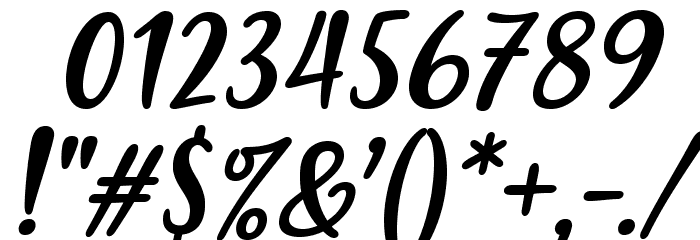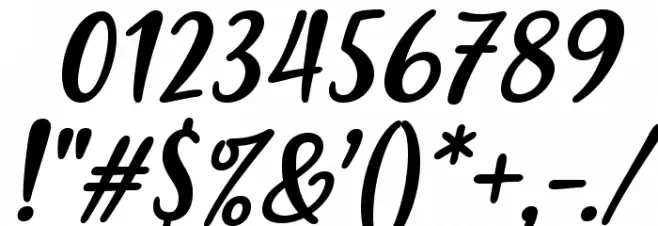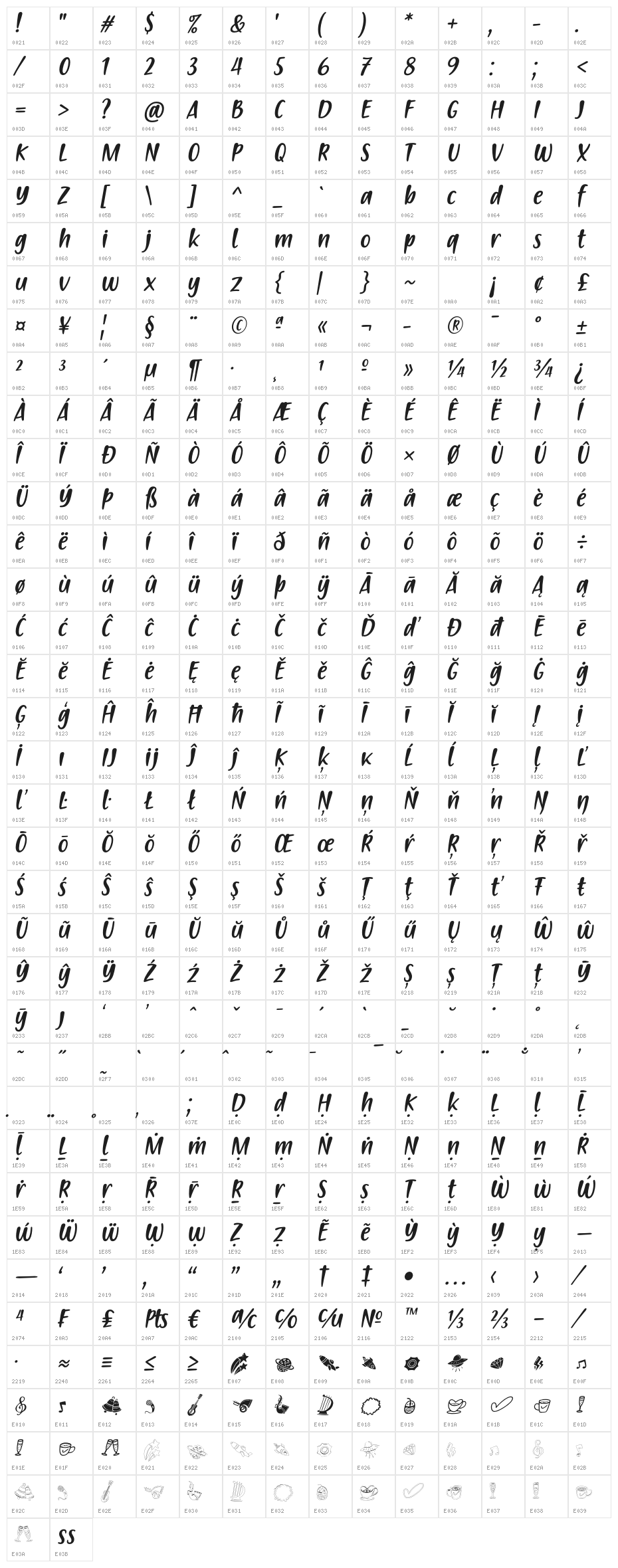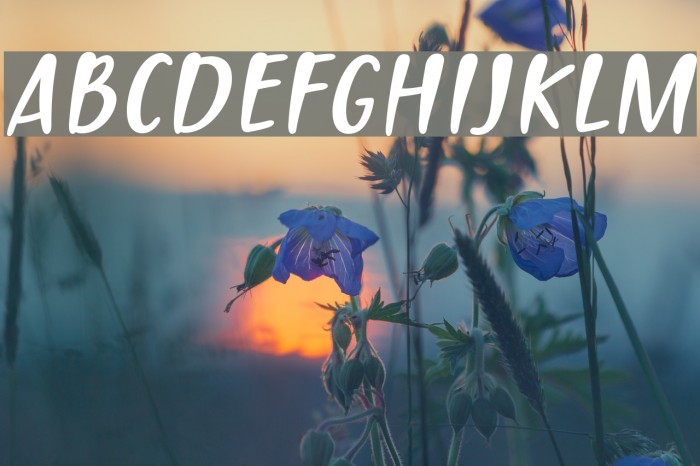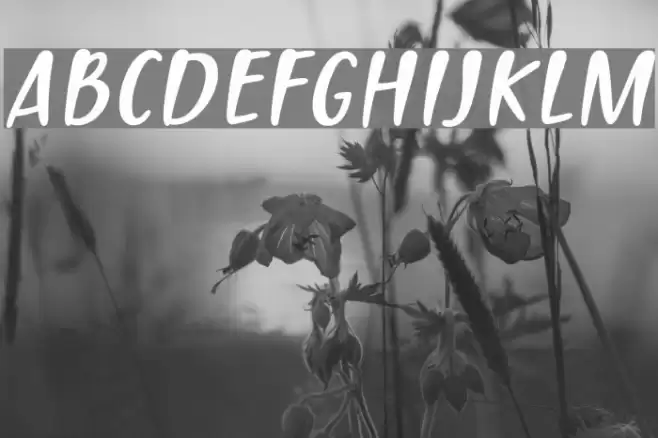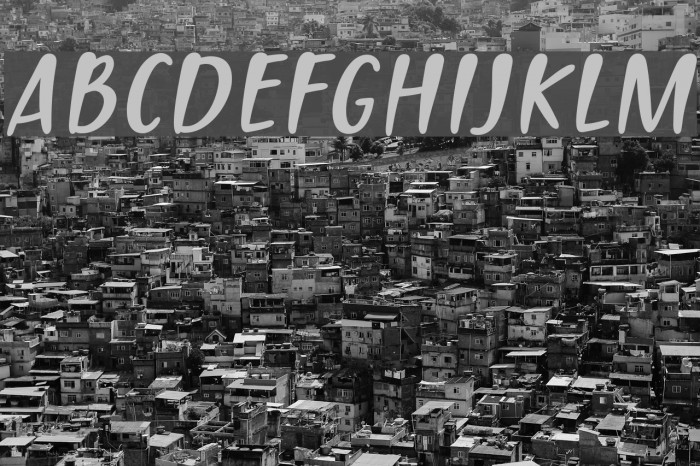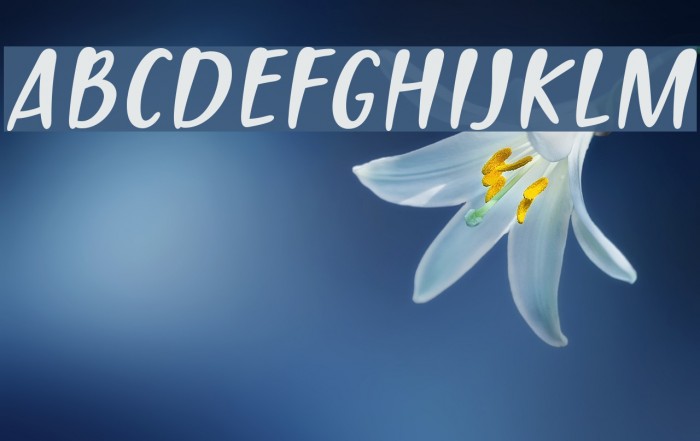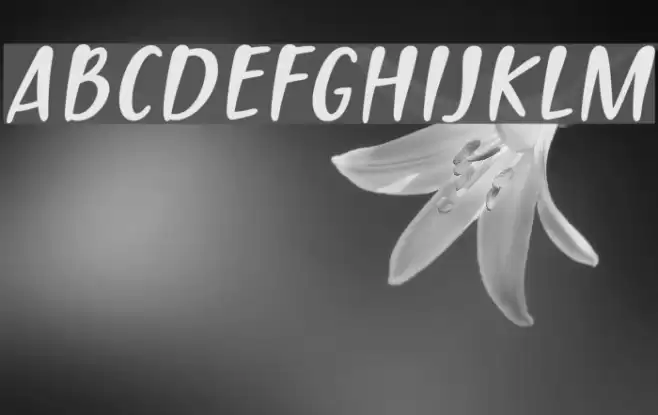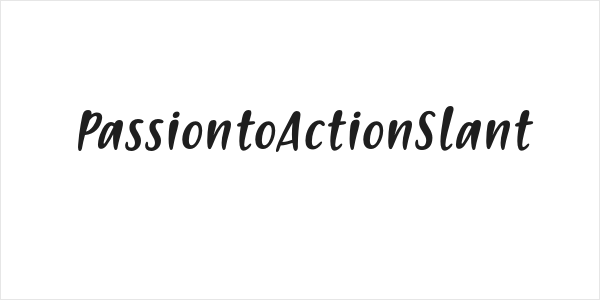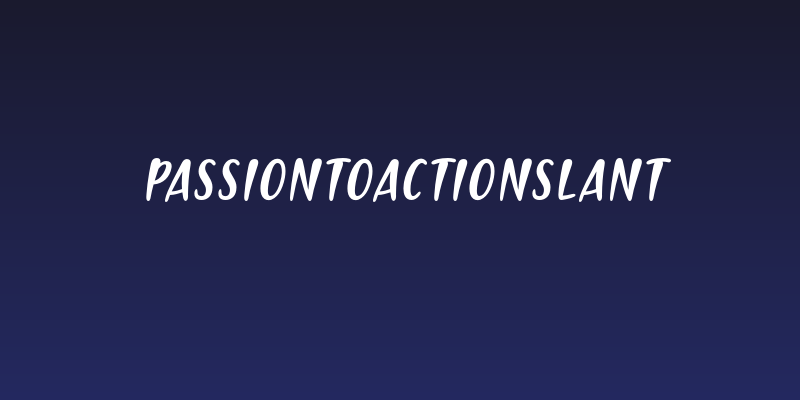
PassiontoActionSlant Font
PassiontoActionSlant Description
This font exudes a lively and dynamic energy with its slanted, handwritten style. The letters are bold and slightly condensed, giving a sense of urgency and movement. The strokes are smooth and fluid, with a consistent medium contrast that enhances readability while maintaining a casual, friendly appearance. The uppercase and lowercase letters are well-proportioned, and the numerals are clear and distinct. Special characters are included, adding versatility for various design needs. This font is perfect for projects that require a personal touch or a sense of spontaneity.
Proposed ProjectsIdeal for branding, social media graphics, posters, and invitations where a personal and energetic touch is desired.